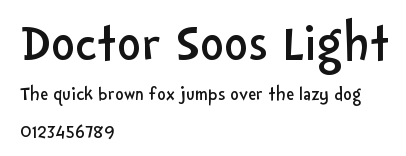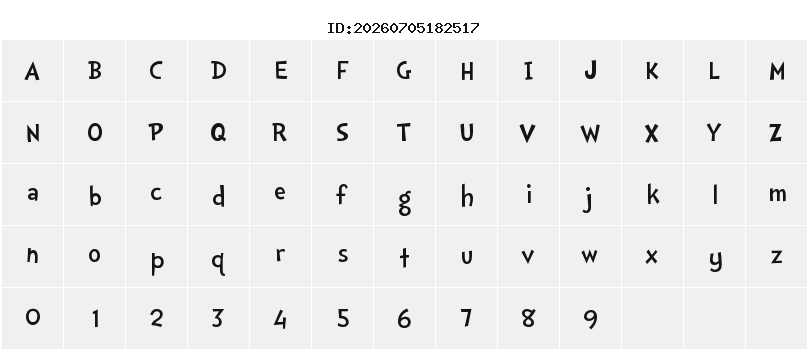
• Font Name: Doctor Soos Light
• Full Font Name: Doctor Soos Light
About Doctor Soos Light.ttf
Doctor Soos Light.ttf is a modern, elegant sans-serif font designed for ultimate readability and visual harmony. Perfect for branding, headlines, web design, and print materials.